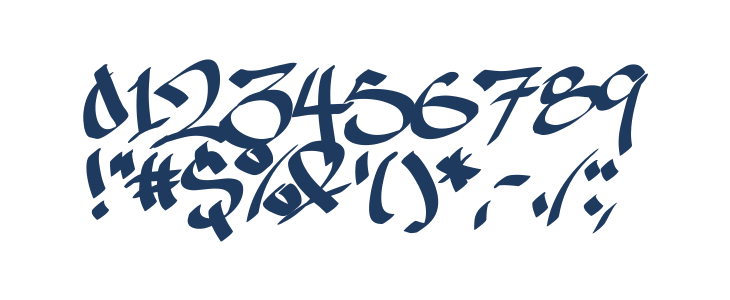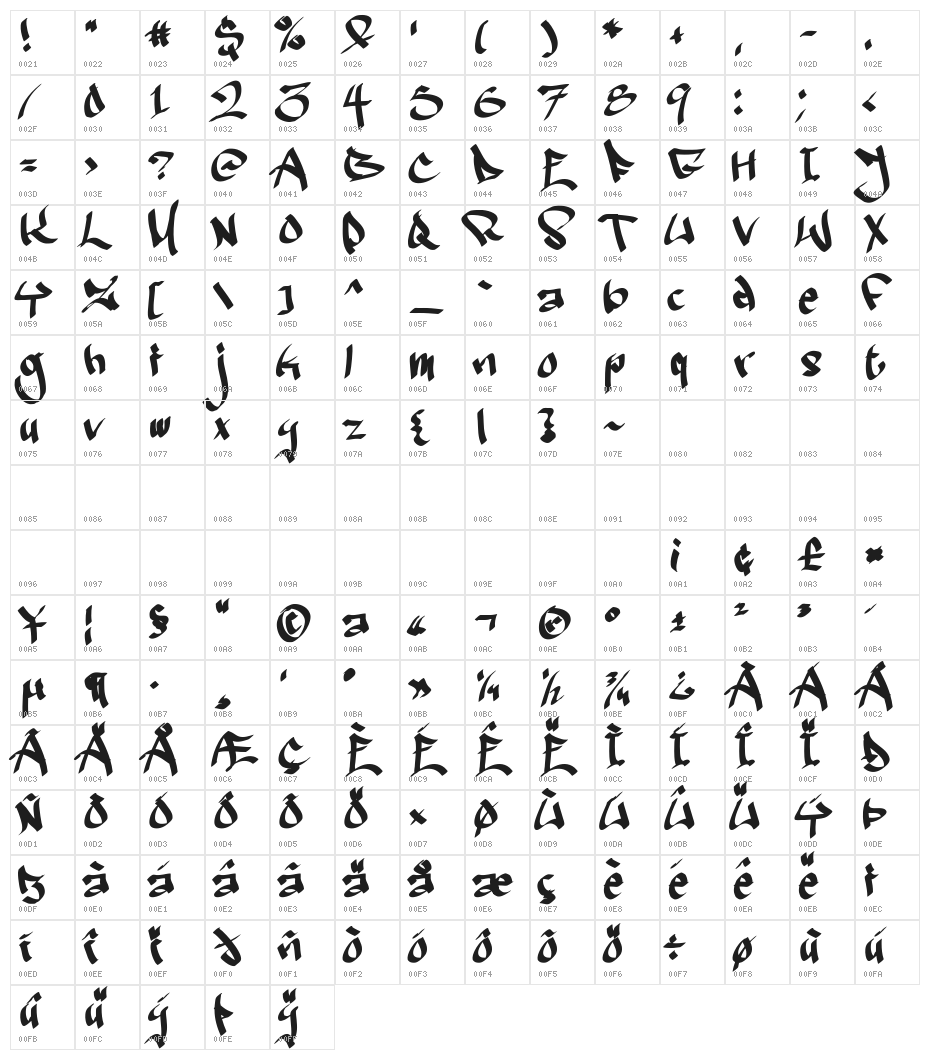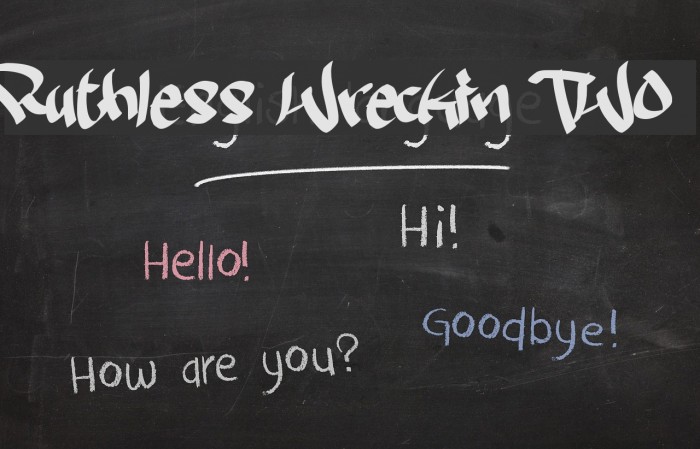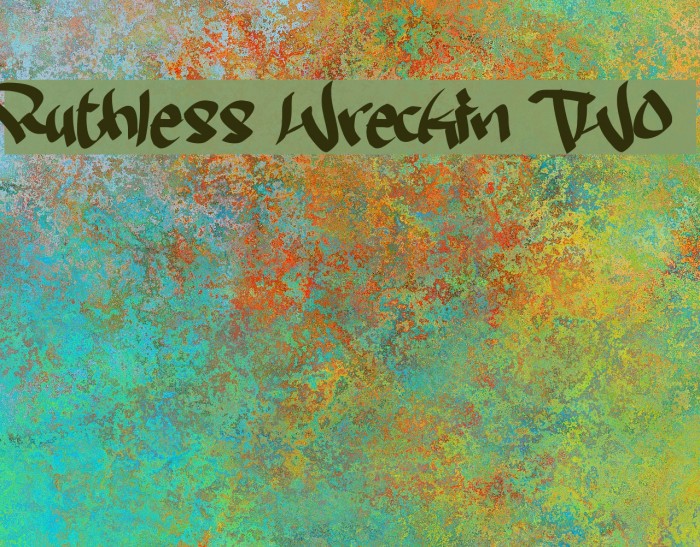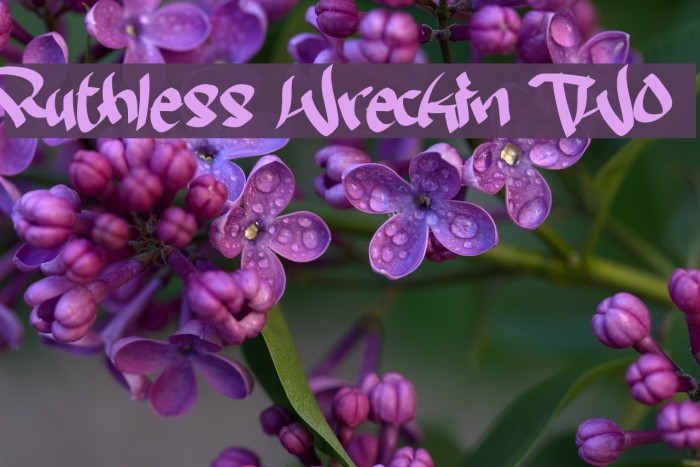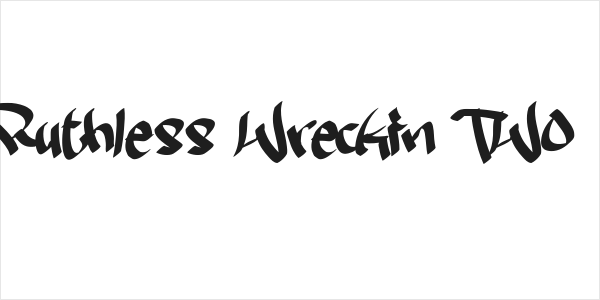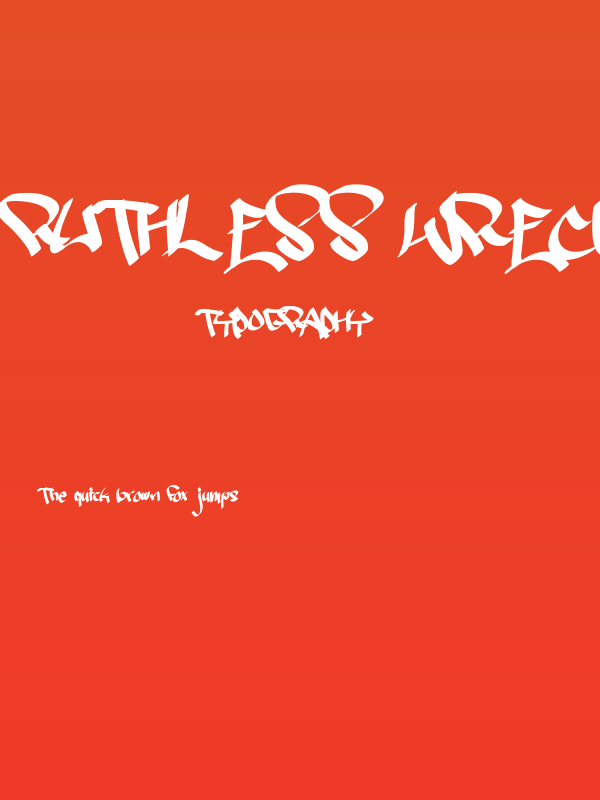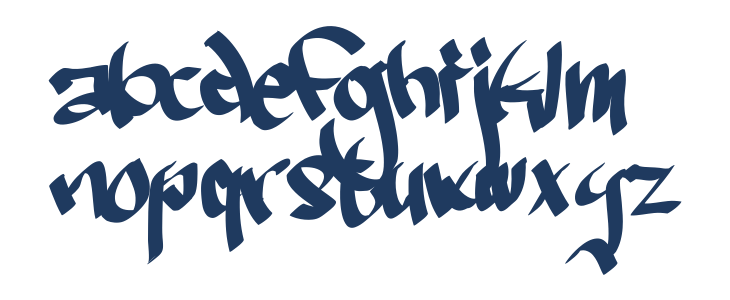
Ruthless Wreckin TWO Font
Ruthless Wreckin TWO Description
This font exudes a bold, rebellious energy with its sharp, angular strokes and dynamic flow. The characters are heavily stylized, resembling graffiti or street art, with exaggerated curves and pointed edges that create a sense of movement and intensity. The uppercase letters are particularly striking, with a dramatic flair that commands attention. The lowercase letters maintain the same edgy style, ensuring consistency throughout the typeface. Numbers and special characters are equally expressive, adding to the font's overall impact. This font is perfect for projects that require a strong, unconventional aesthetic.
| Overall Style | Modern, Urban |
| Proposed Projects | Ideal for street art designs, edgy branding, music album covers, and urban-themed posters. |